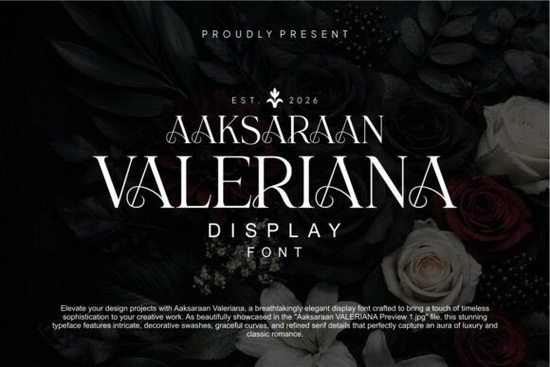
Looking for a display font that adds a refined, luxurious feel to your next project? The Aaksaraan Valeriana Font is a beautifully crafted typeface designed for branding, wedding stationery, fashion layouts, and any design that calls for a premium, elegant look. With its sweeping letterforms and classic-meets-modern style, it works especially well for headlines, logos, and display text where you want every character to feel intentional and polished.
What Kind of Projects Is Aaksaraan Valeriana Best For?
This font was built with high-end design in mind. It's not the kind of typeface you'd use for body copy or technical documents and that's a good thing. Here's where it really shines:
- Wedding invitations and event stationery Its romantic, flowing characters set the mood for formal and semi-formal events.
- Luxury brand logos and packaging Cosmetics, boutique fashion, artisan goods anything that needs a refined identity.
- Fashion editorials and magazine layouts The letterforms have enough personality to anchor a full-page spread.
- Social media graphics Quote cards, sale announcements, and Instagram posts benefit from its strong visual presence.
- Greeting cards and print-on-demand products Works well on mugs, tote bags, and wall art when paired with the right layout.
If you're working on a retro-inspired project, you might want something bolder and more vintage. But for designs that need elegance and warmth, Aaksaraan Valeriana is a strong pick.
How Does It Compare to Other Display Fonts?
There's no shortage of elegant display fonts available, so what sets this one apart? Aaksaraan Valeriana blends classic architectural letterforms with artistic modern flourishes. That combination gives it a timeless quality it doesn't feel overly trendy or tied to a specific design era.
For comparison:
- Looking for something more playful and casual? The Gilligan Karl font offers a friendlier, more relaxed vibe.
- Need bold, cinematic energy? The Death Star font takes a completely different approach with its heavy, dramatic style.
- Want layered, textured typography? The Stacked Remember font brings a stacked, dimensional look that works well for posters and headers.
Aaksaraan Valeriana sits in its own lane it's softer than most bold display fonts but has enough character to avoid feeling generic. That balance is hard to find, and it's exactly why designers keep reaching for it.
Is It Easy to Use for Beginners?
A few tips for working with elegant display fonts like this one:
- Use it at larger sizes. This font is designed for headlines and display text, not paragraphs. Set it at 36pt or above to let the details come through.
- Give it breathing room. Increase letter spacing slightly for a cleaner, more sophisticated look.
- Pair it with a simple sans-serif. A clean body font like Montserrat or Lato won't compete with the flourishes.
- Test different colors. Gold on dark backgrounds, deep navy on cream this font rewards thoughtful color choices.